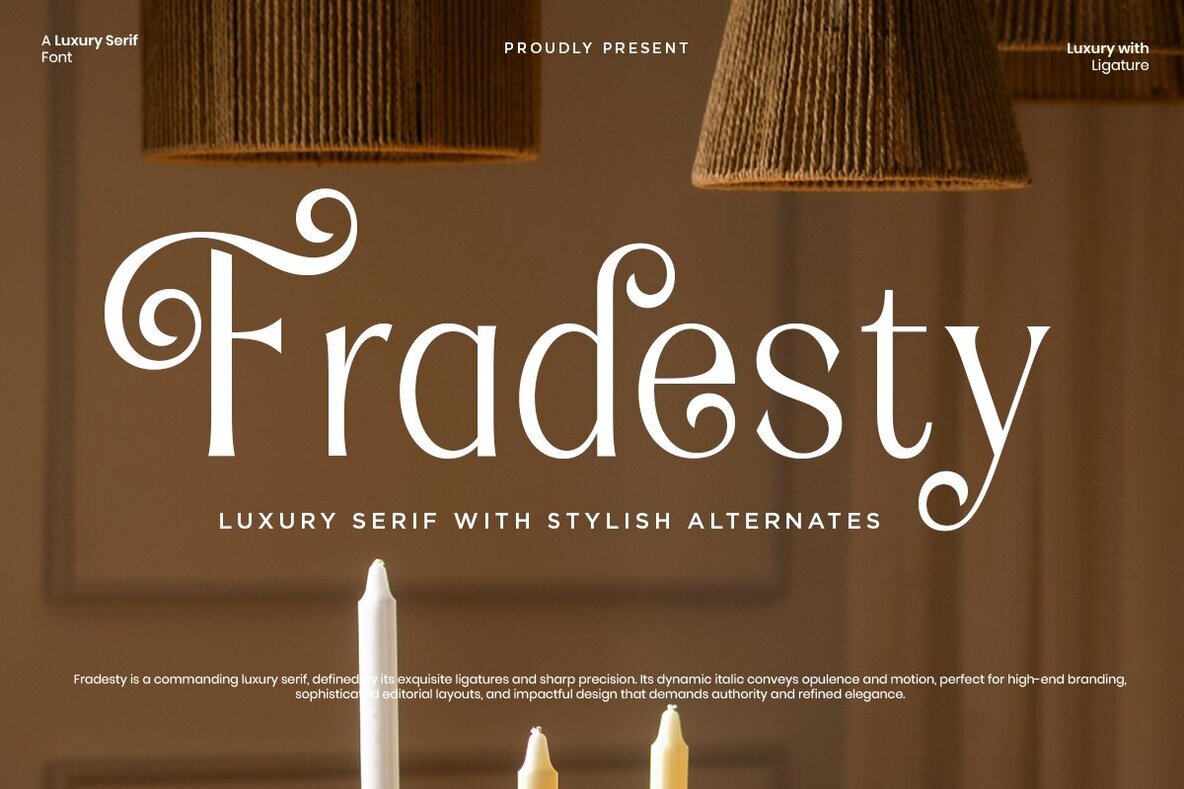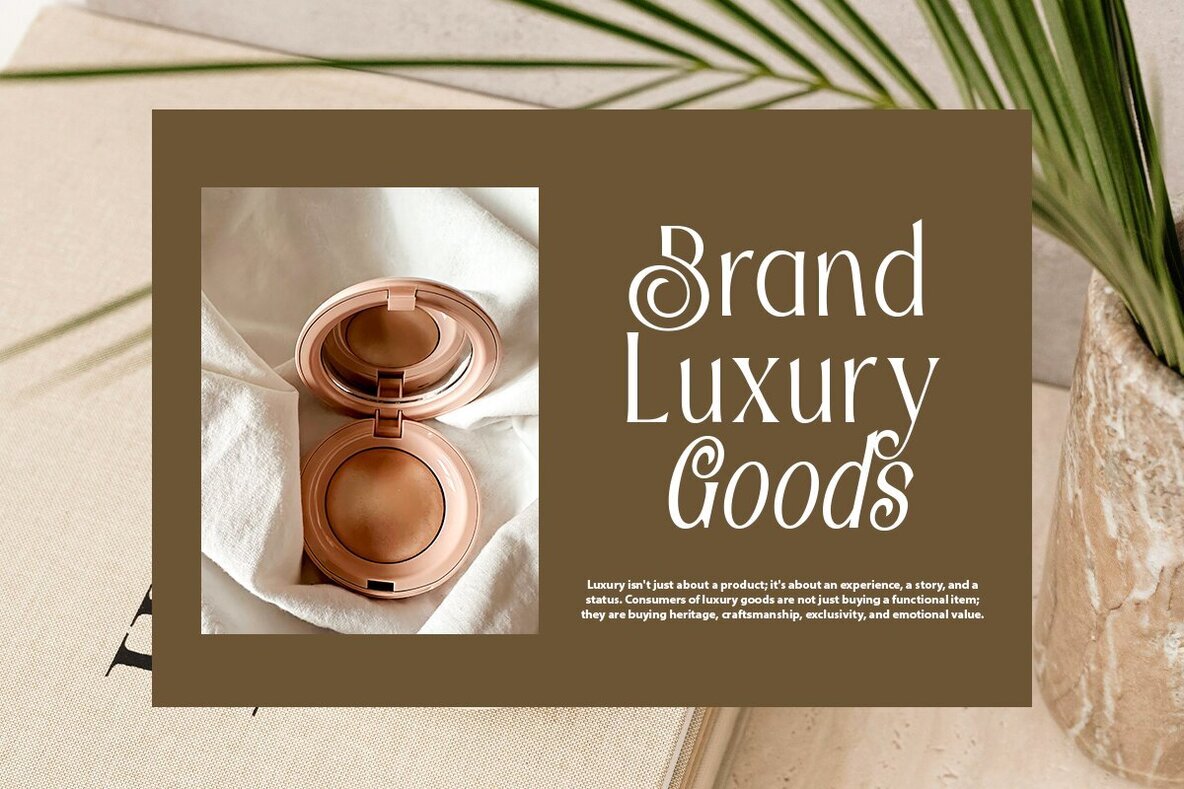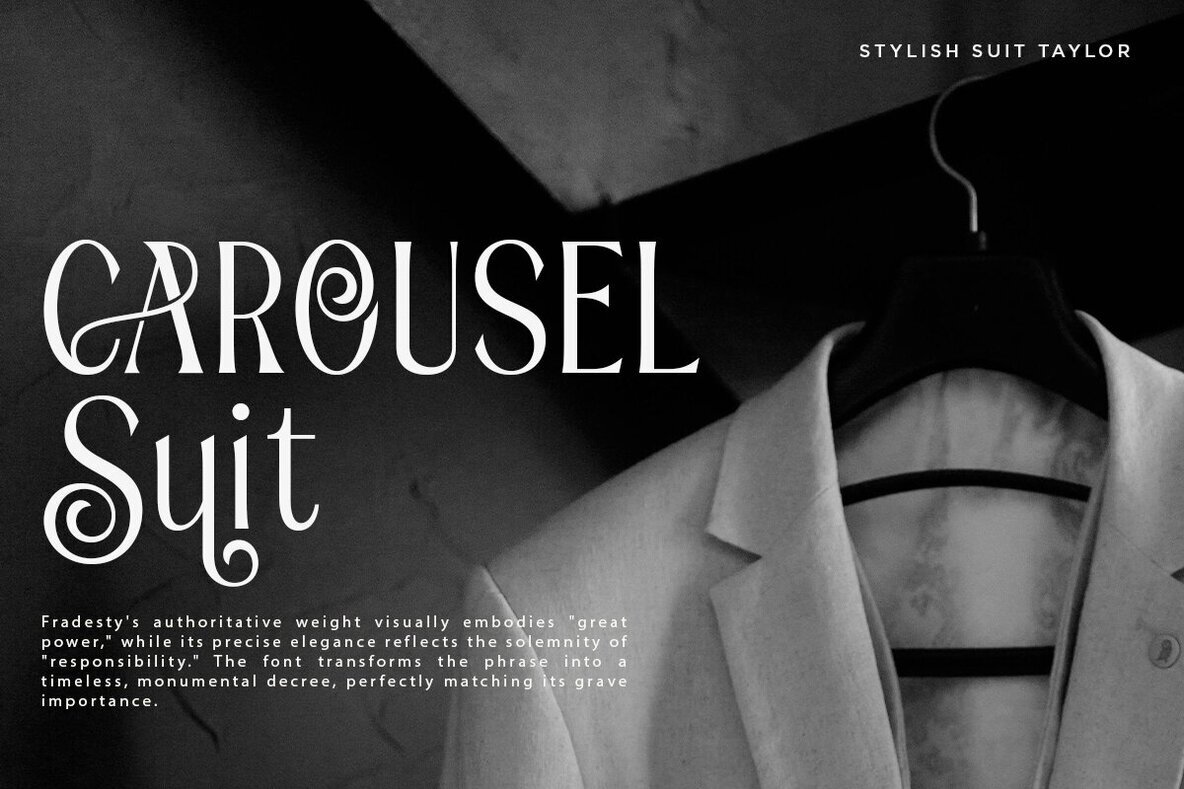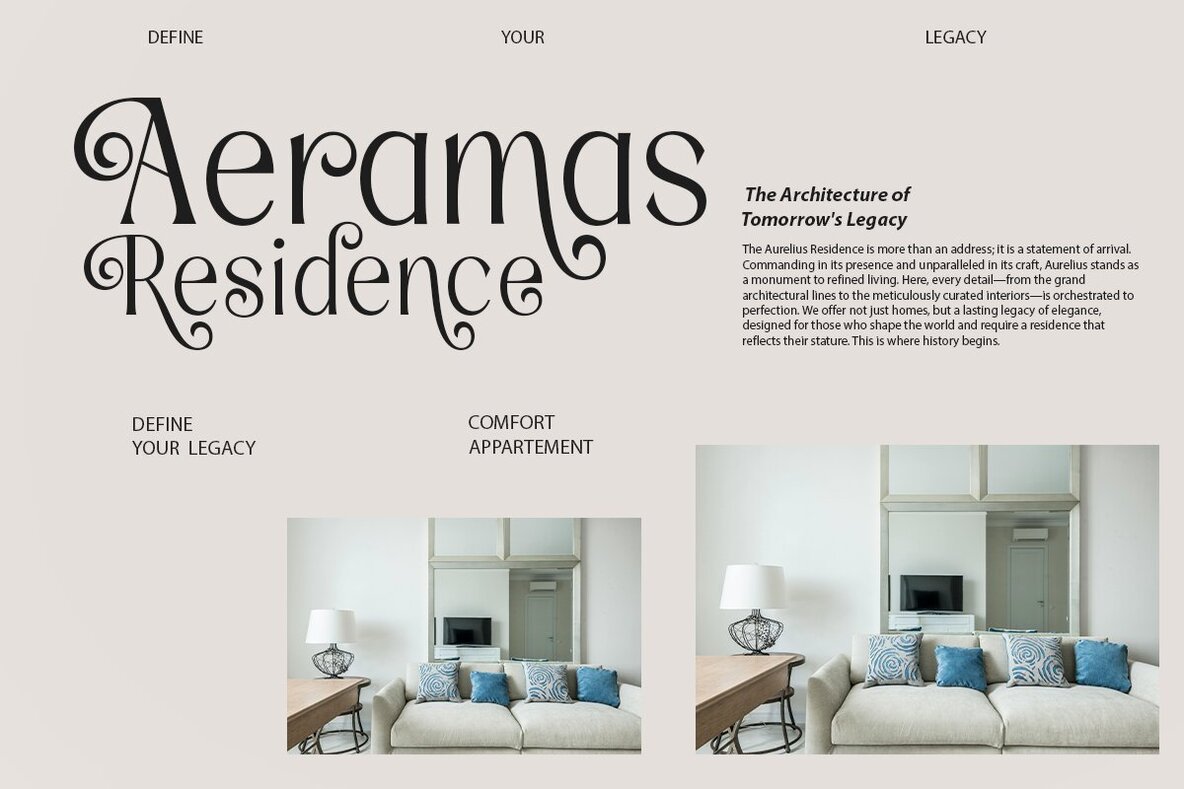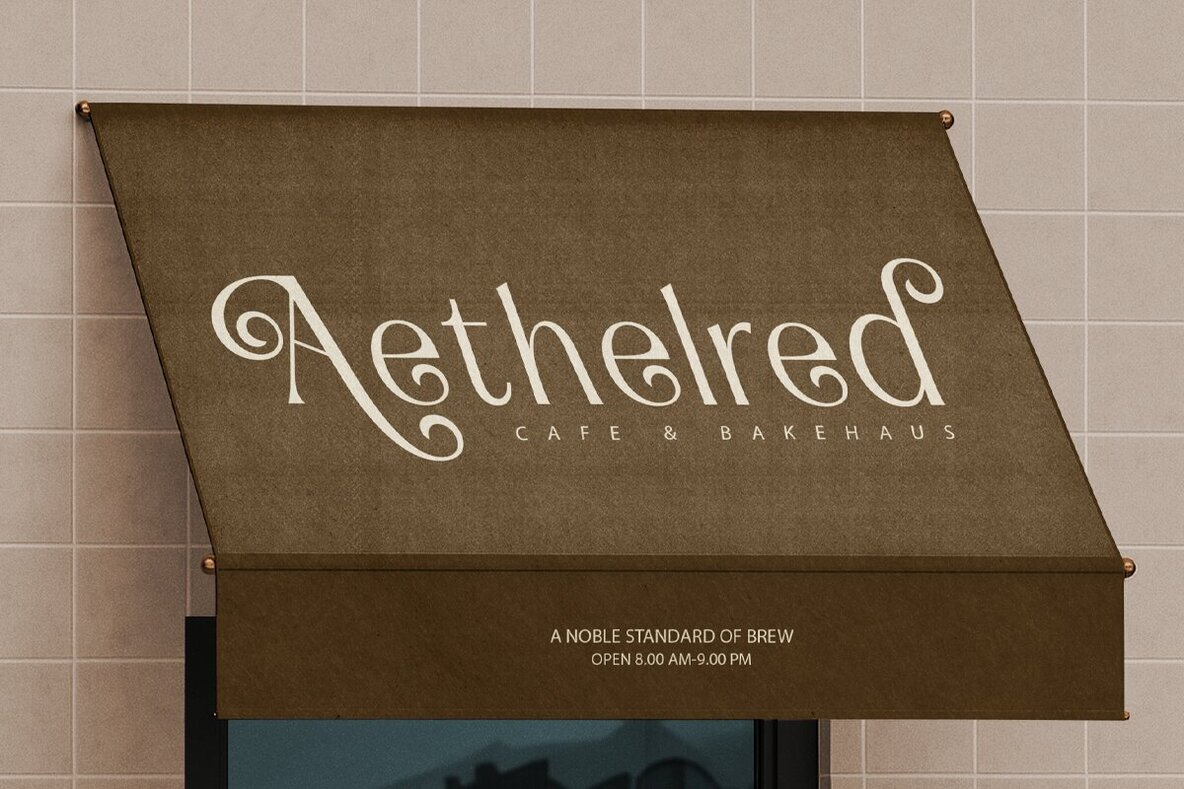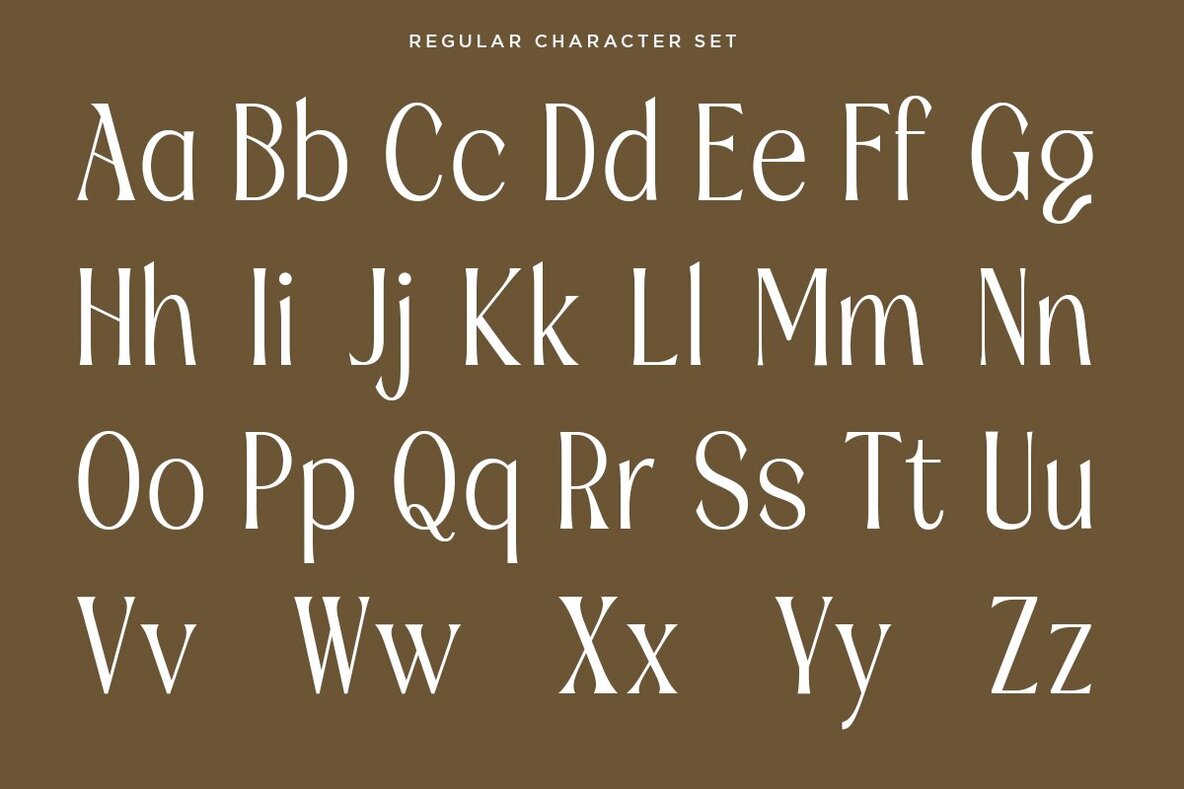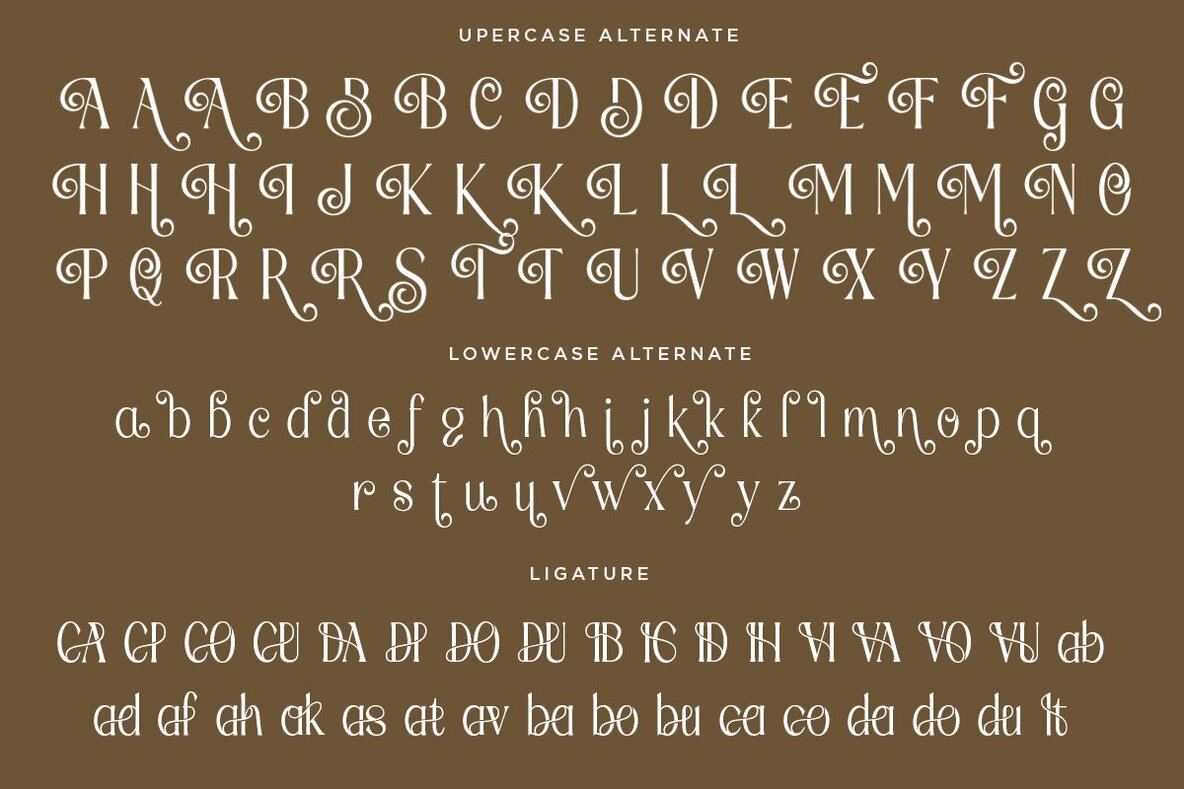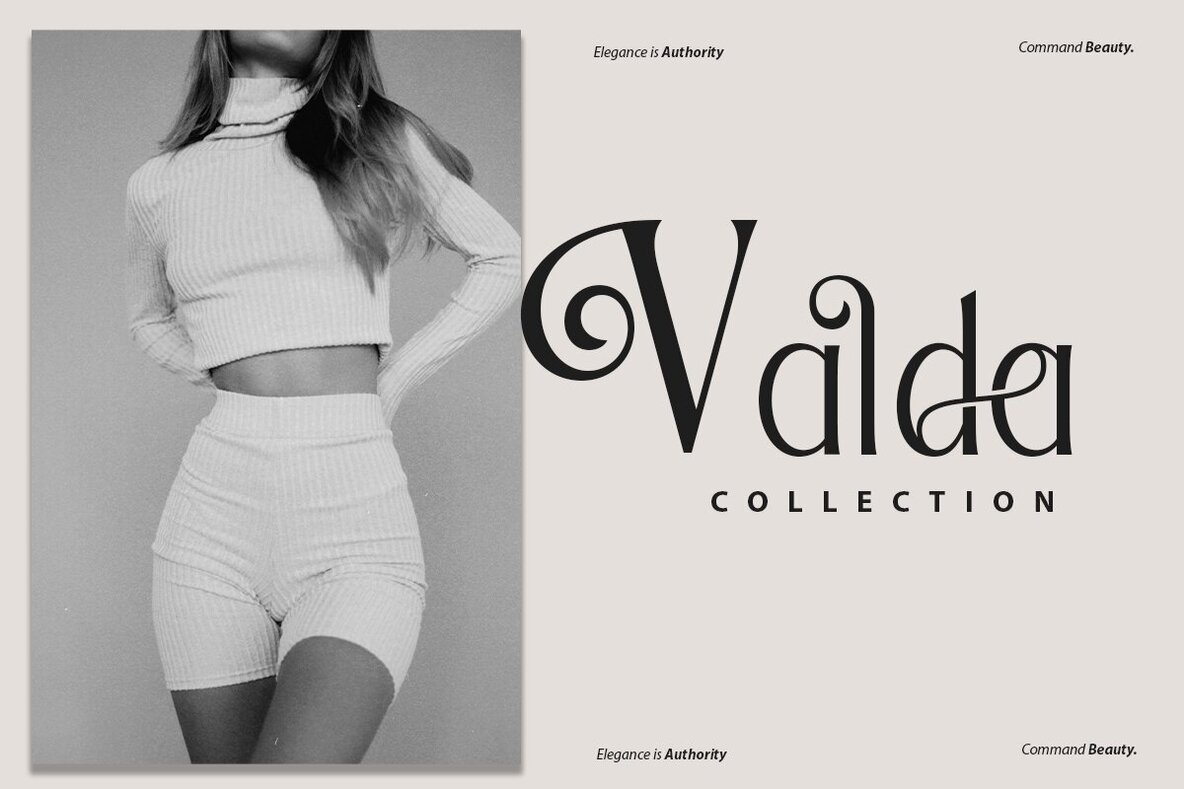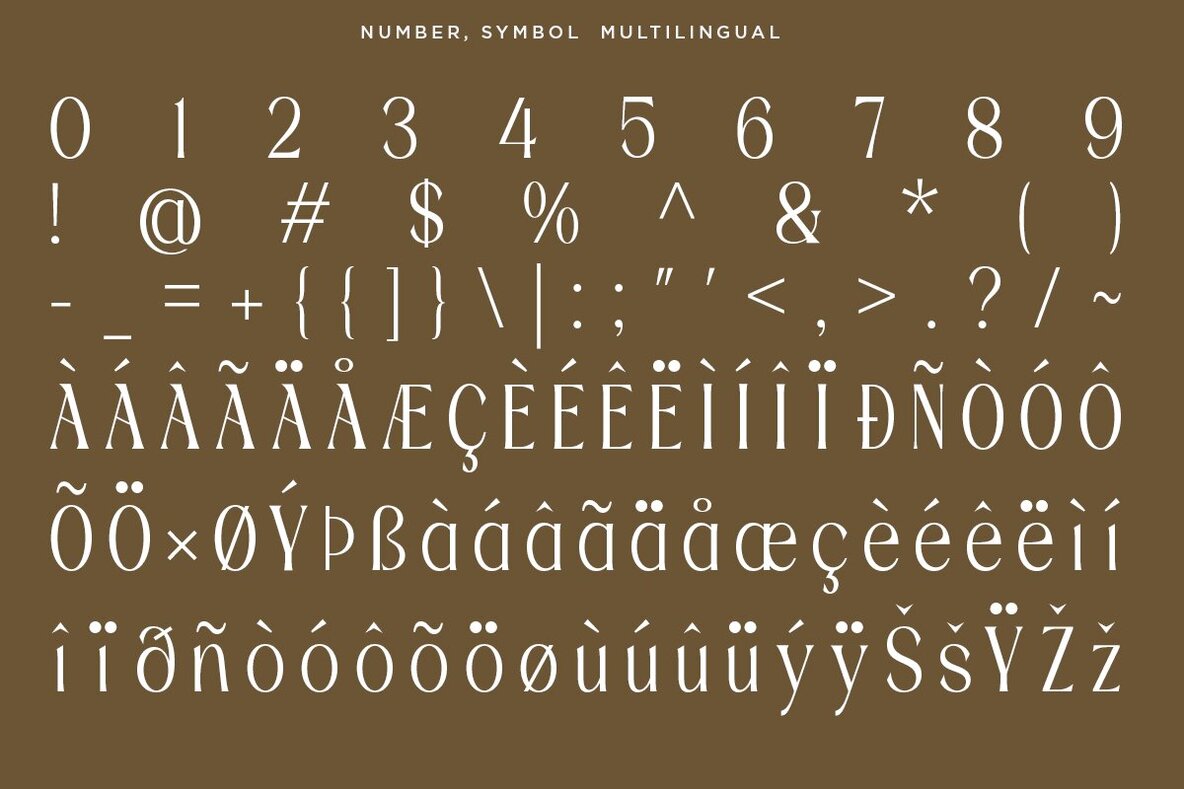
Fradesty Font
Fradesty brings together refined sophistication and bold presence, ideal for luxury branding and high-end editorial design. With expertly crafted curves and a collection of stylish alternates and ligatures, this serif font offers clarity and elegance across headlines, magazines, and exclusive visual projects. Designed for modern appeal while honoring timeless serif tradition, Fradesty makes a statement without compromising grace. Its careful details support upscale visual storytelling, perfect for design professionals seeking commanding type that remains approachable and polished.Fradesty: An Elegant Luxury Serif for Refined Visuals